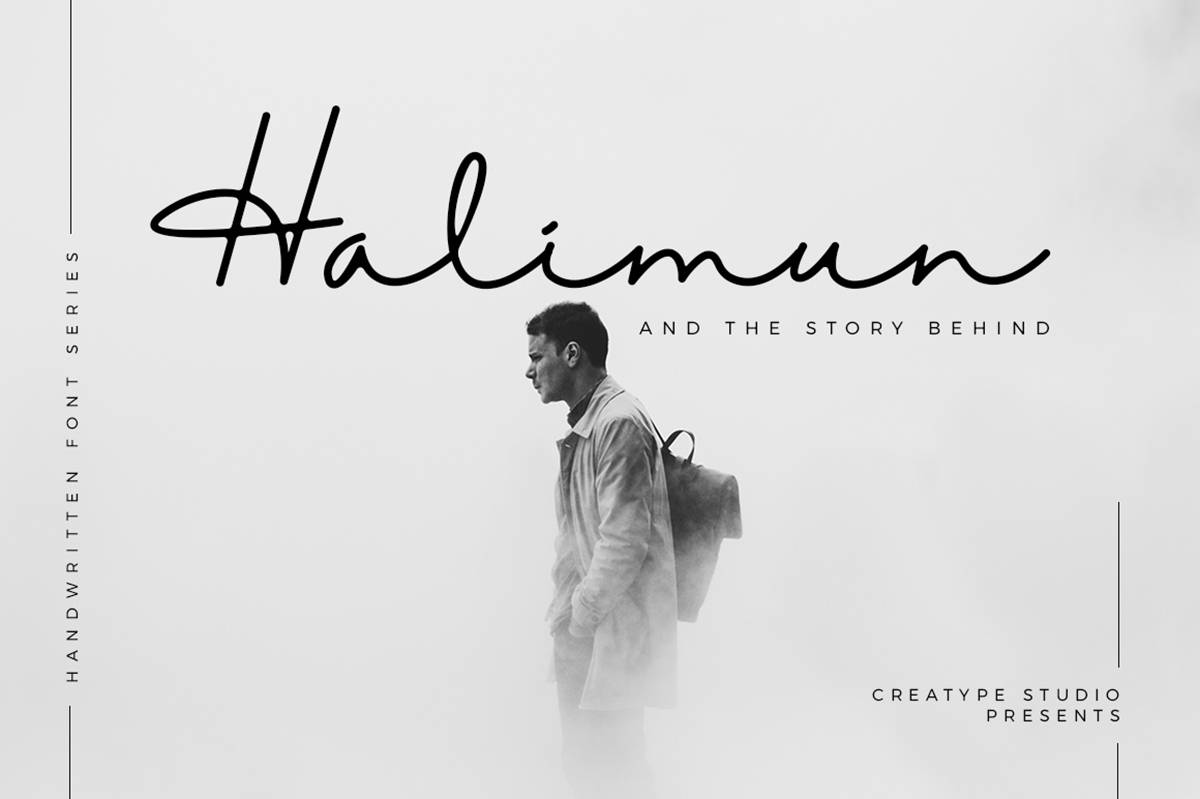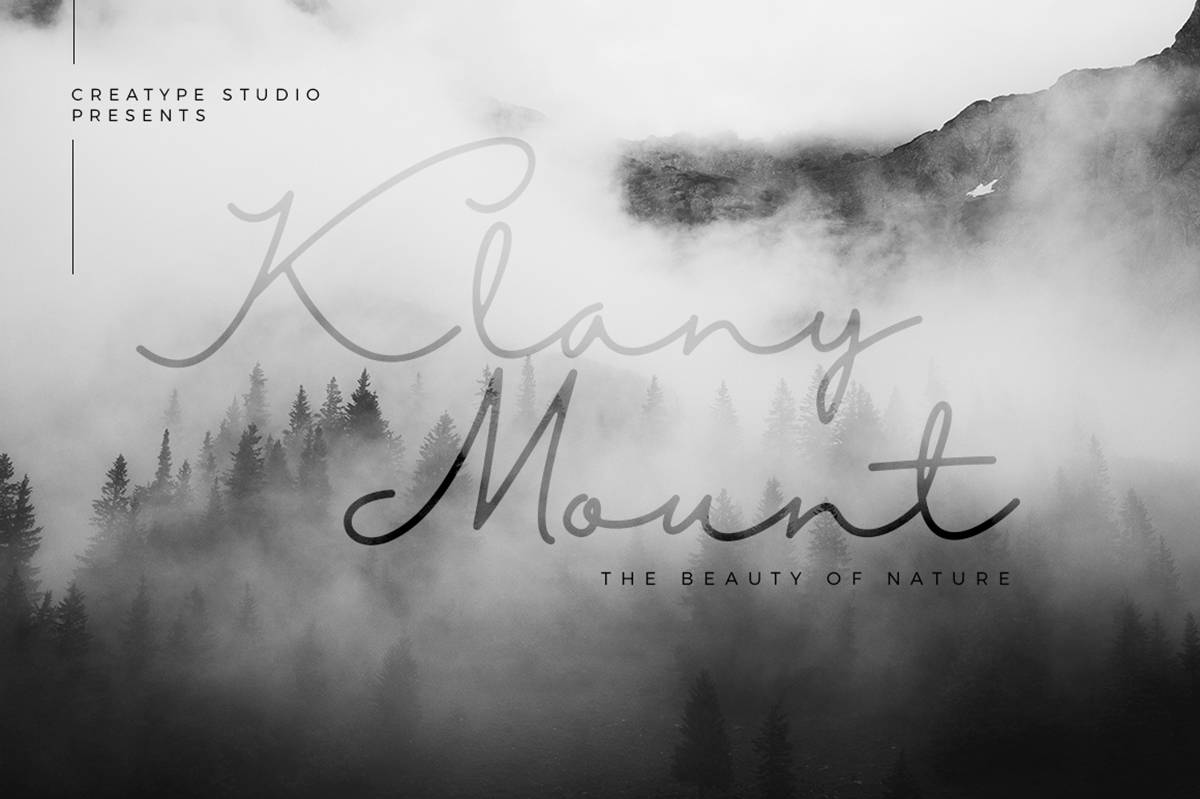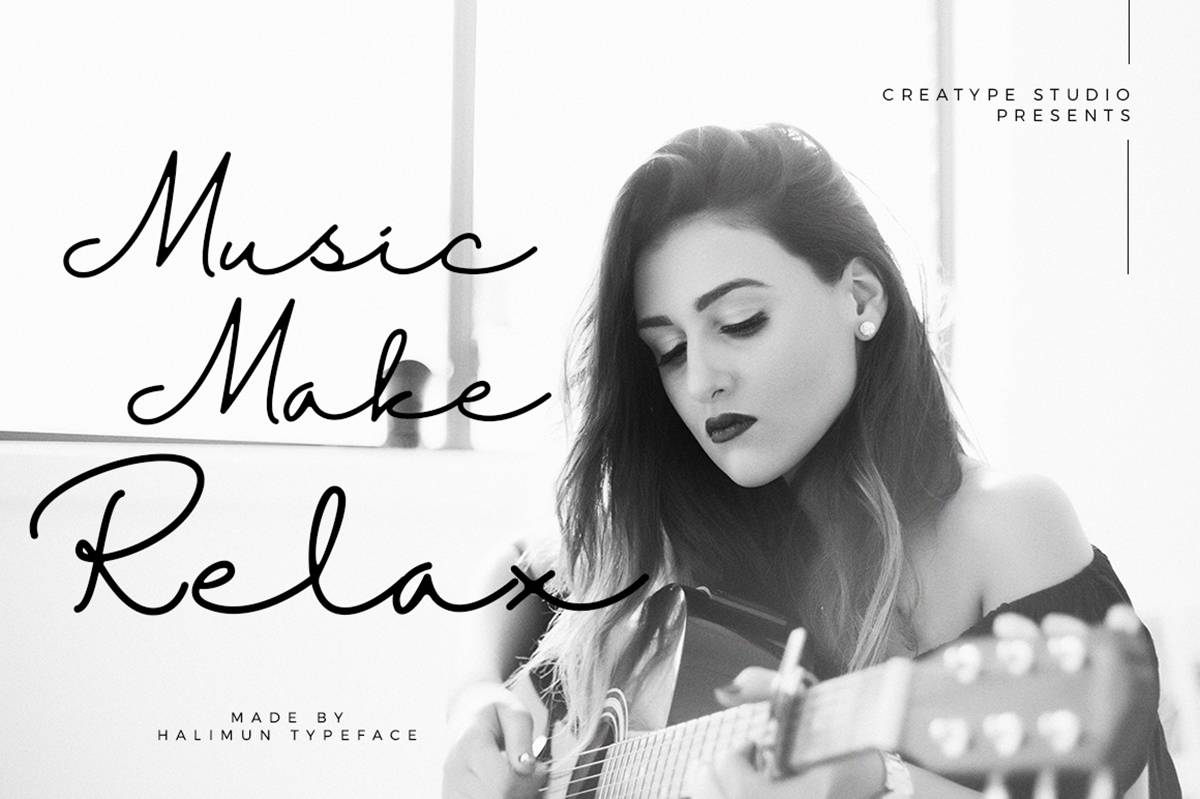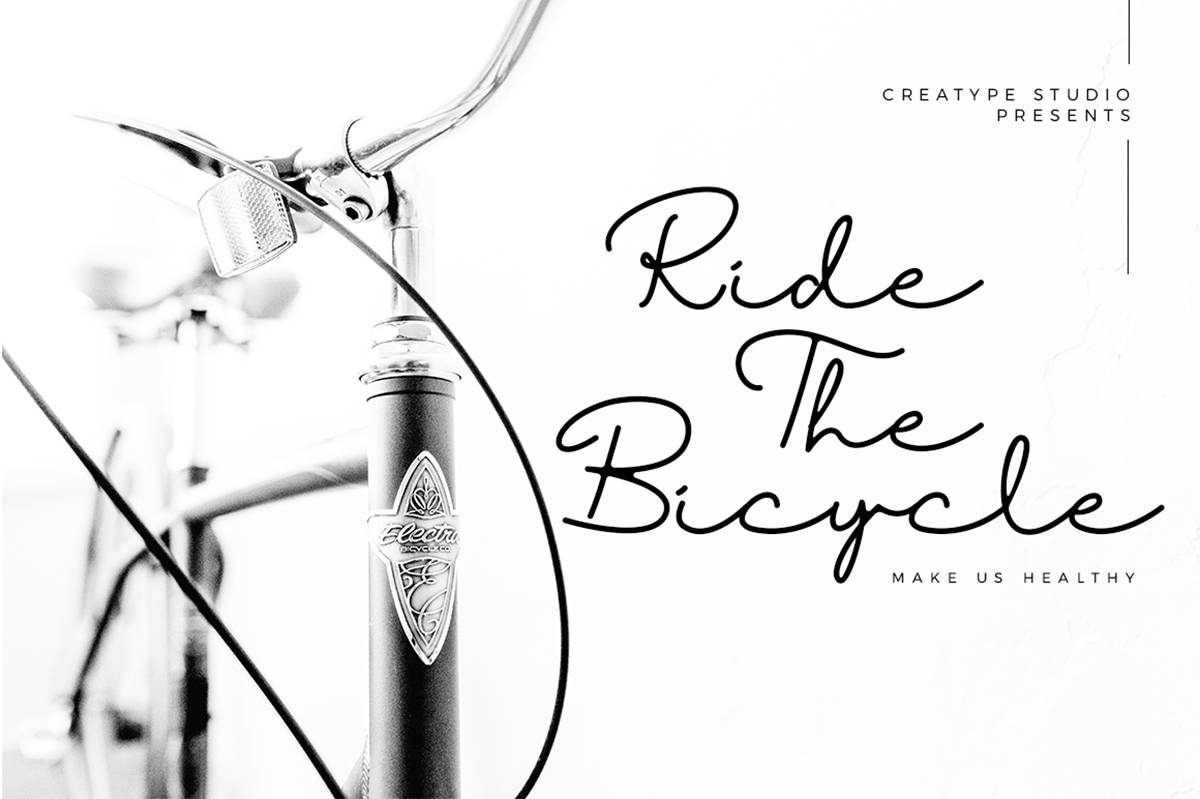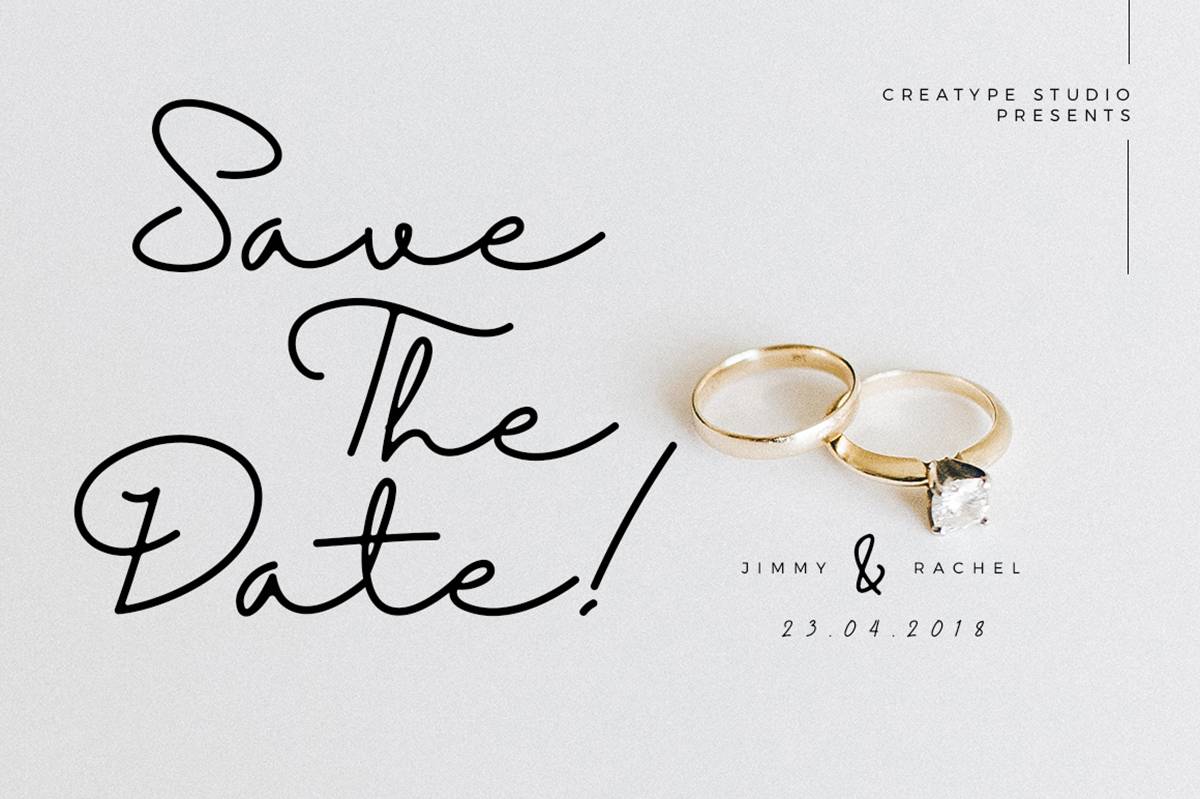
Halimun is a delicate, handwritten script font that features graceful, flowing letterforms with smooth, consistent strokes and a refined, elegant appearance. Its slender, slightly condensed characters and stylish uppercase letters make it ideal for sophisticated branding, wedding invitations, and feminine editorial designs. This font’s charming, personal touch enhances projects that seek a modern yet classic handwritten feel.
Halimun Font
About Halimun Font
| Font family | Halimun Font |